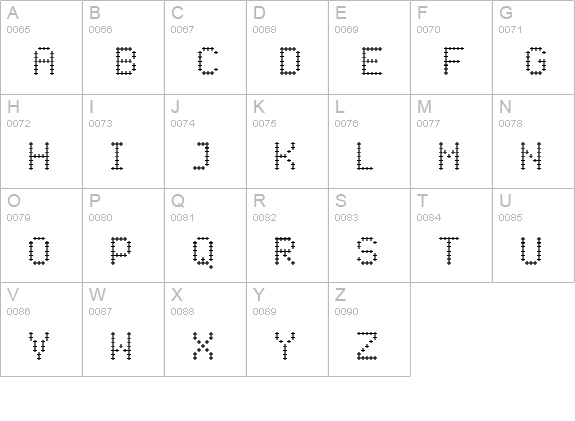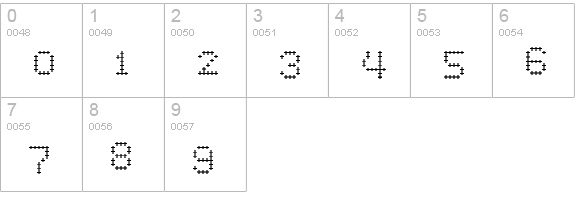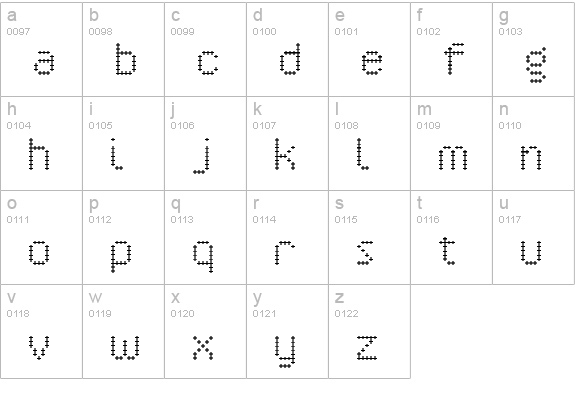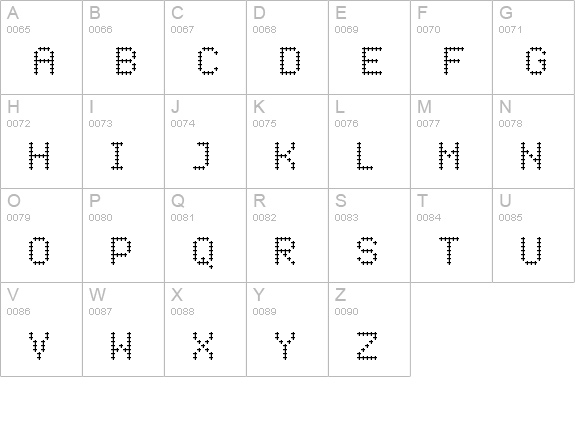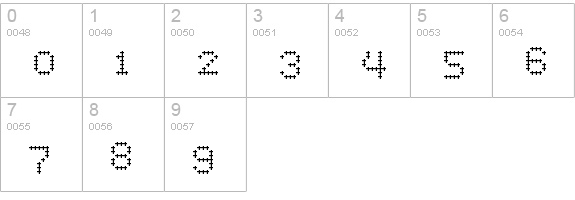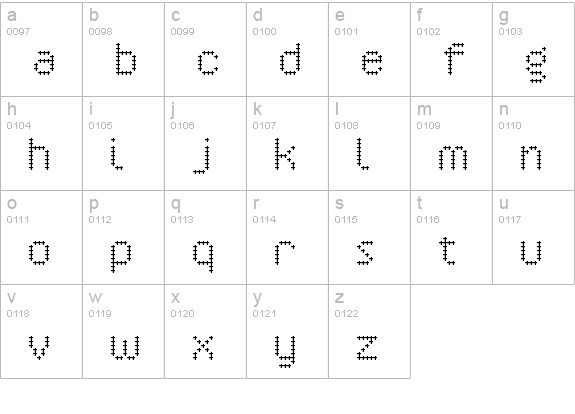
Crossover Font Details
Crossover font is a stylish and modern typeface that seamlessly blends classic elegance with contemporary design. Its sleek lines and unique characters make it perfect for a wide range of projects, from branding to editorial design. With its versatility and readability, Crossover font is sure to make a statement in any application. What's even better is that Crossover font is available for free download at FontsMarket.com. This means you can easily access this high-quality font and use it in your creative projects without any cost. Don't miss out on the opportunity to enhance your designs with the sophisticated charm of Crossover font - download it now and elevate your typography game!